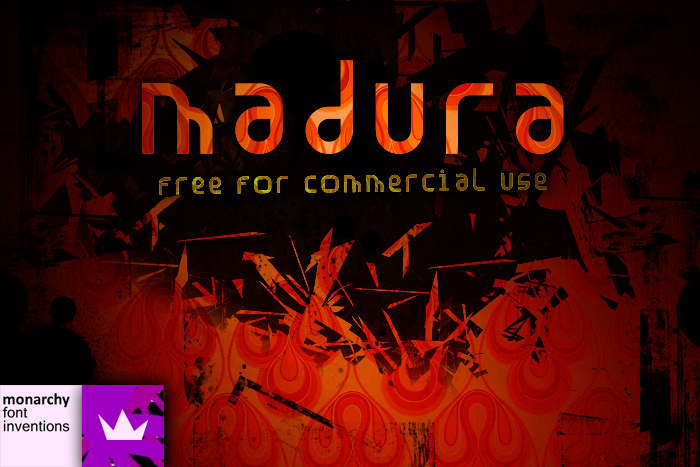
Madura by Adien Gunarta is a free fixed-width sans serif with a sleek, experimental build. Rounded strokes and sharply cut gaps create a fluid technical silhouette.
Digital graphics are a natural setting for its machine-like spacing and distinctive broken contours, especially in music visuals, game interfaces, and technology branding. It is most convincing when the lettering itself becomes part of the interface or display concept rather than serving as ordinary copy.